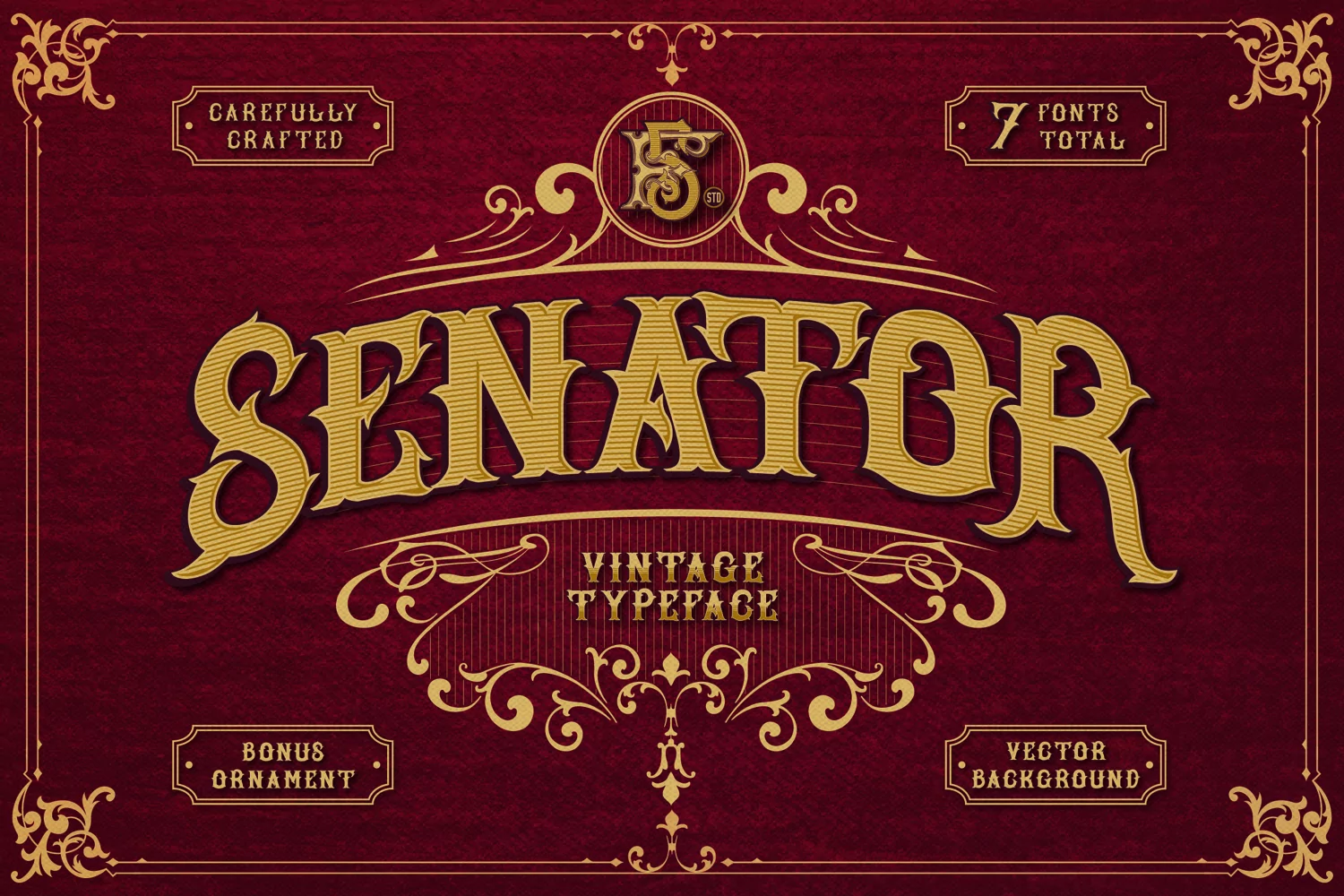
SENATOR Font
SENATOR Font is perfect for political campaigns, government documentation, legislative materials, diplomatic correspondence, civic organizations, official announcements, institutional branding, legal documents, formal presentations, and authoritative governmental communications.
What makes SENATOR Font exciting is its commanding authority that embodies democratic leadership and institutional gravitas through powerfully crafted letterforms. This prestigious typeface combines political sophistication with public trust, creating a personality that communicates leadership, integrity, and unwavering commitment to democratic values. The font's senatorial character and authoritative appeal make it perfect for political organizations, government institutions, and civic leaders seeking to project credible authority and inspire public confidence in democratic governance.
The SENATOR Font family includes Regular, Bold, Light, Medium, Authority, Presidential, Condensed, and Official variants. Each weight maintains the font's senatorial character while providing comprehensive typographic flexibility for governmental brand identity systems and political design applications across diverse civic platforms.
Whether you're developing political brand identities, creating governmental marketing materials, designing legislative documentation, or building civic engagement campaigns, SENATOR Font delivers unmatched political appeal and senatorial sophistication. Its authoritative presence makes it perfect for political parties, government agencies, civic organizations, and democratic institutions seeking authentic governmental representation.
The font's commanding proportions and authoritative details create an inspiring reading experience that builds public trust and reinforces democratic values. Each letterform has been carefully designed to convey reliability, transparency, and democratic leadership that resonates with citizens seeking trustworthy governance and effective political representation.
This versatile typeface excels in governmental environments, offering designers the authority needed for comprehensive political brand communication strategies. The extensive character set includes senatorial alternates, governmental ligatures, and democratic symbols for political market positioning and civic brand storytelling.
Embrace the power of authoritative design that builds public confidence and celebrates democratic governance excellence.